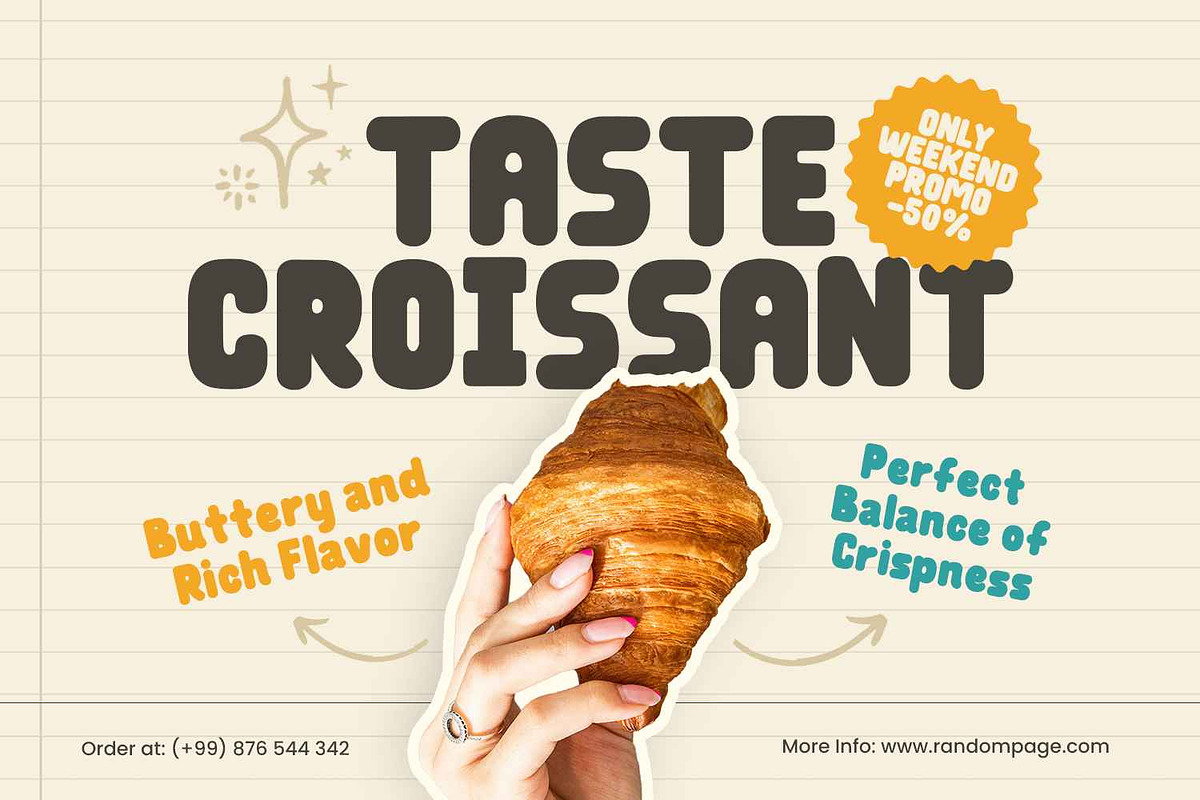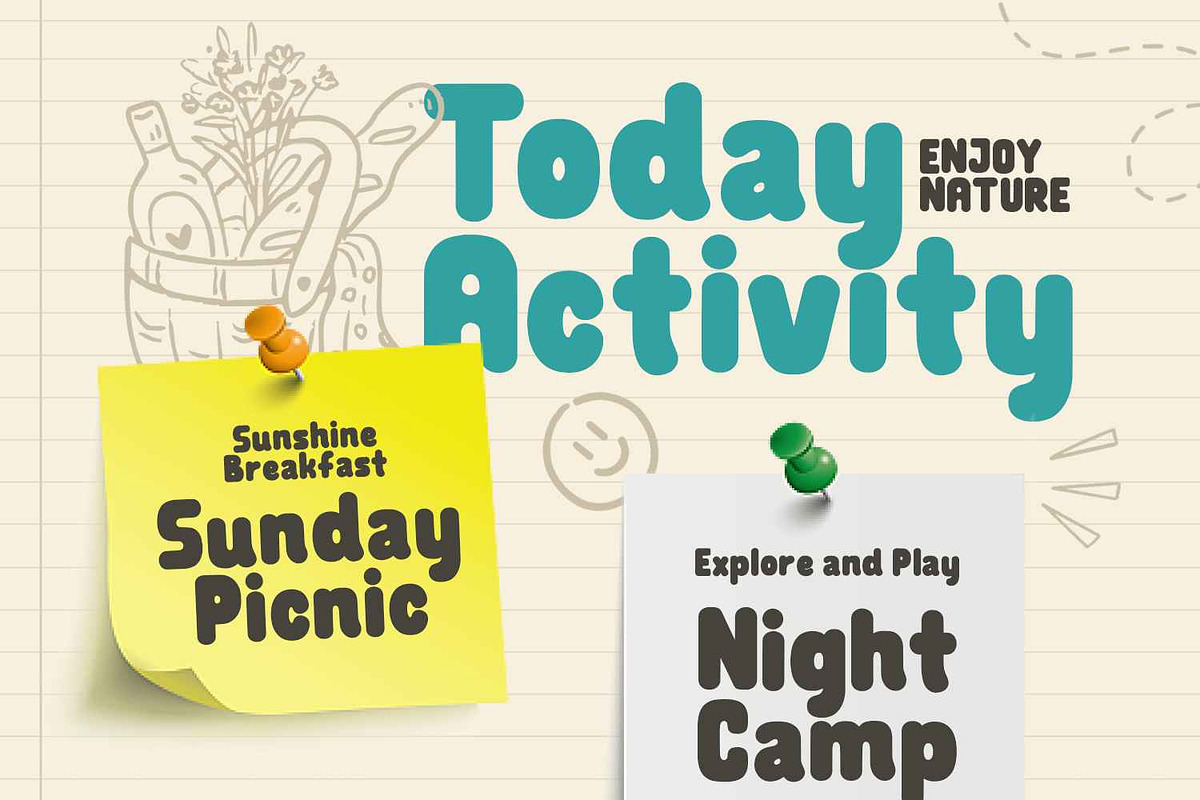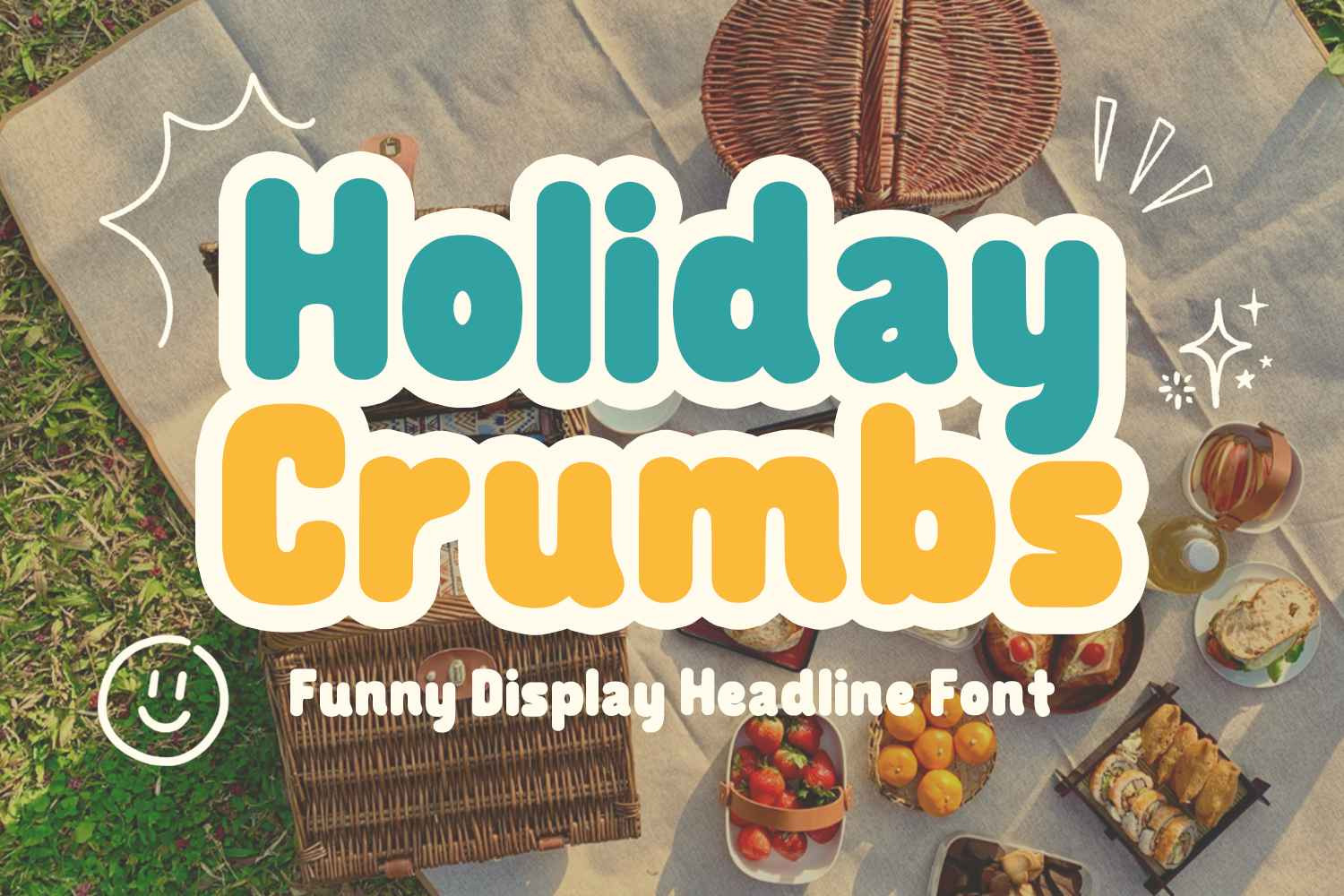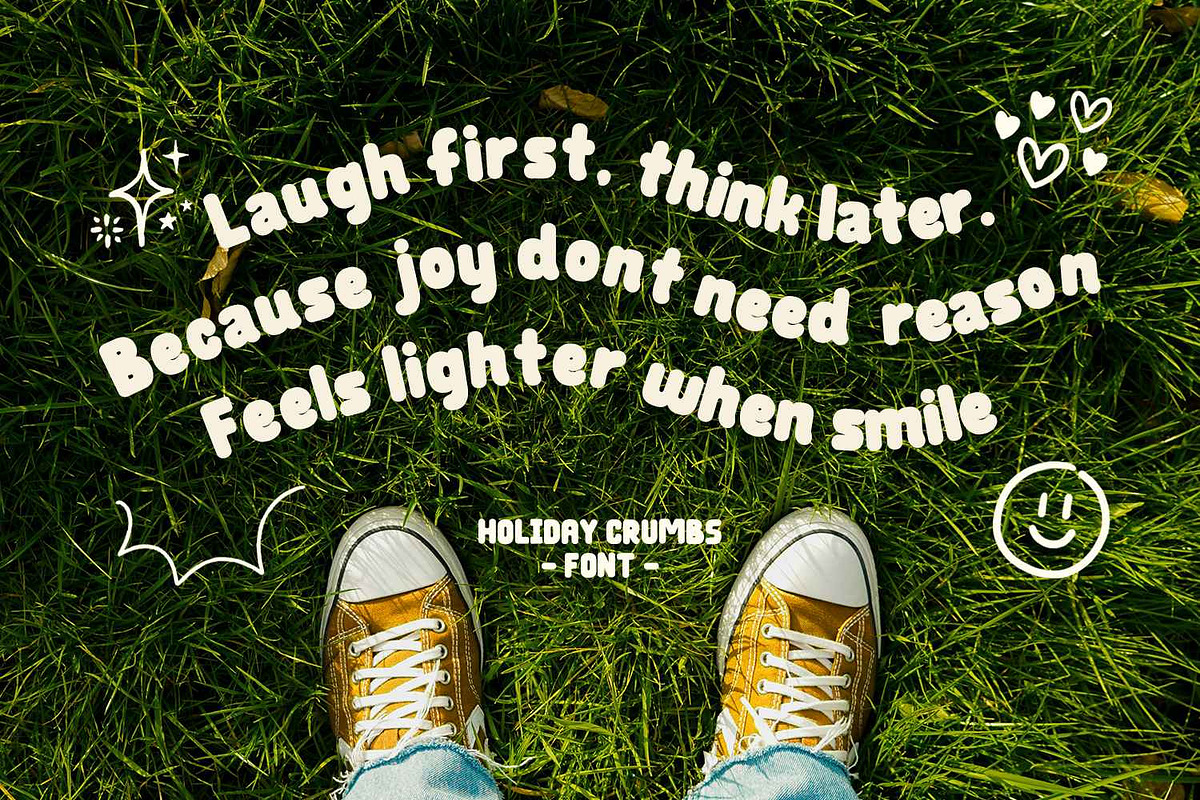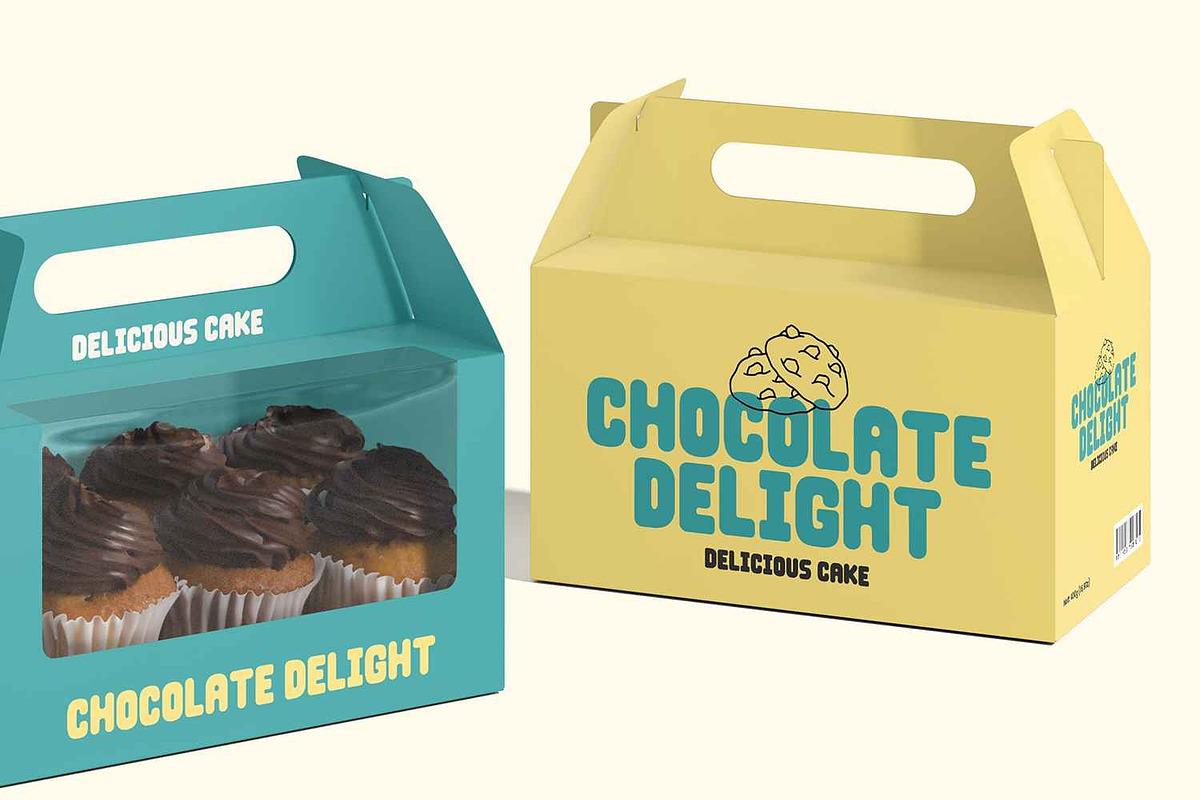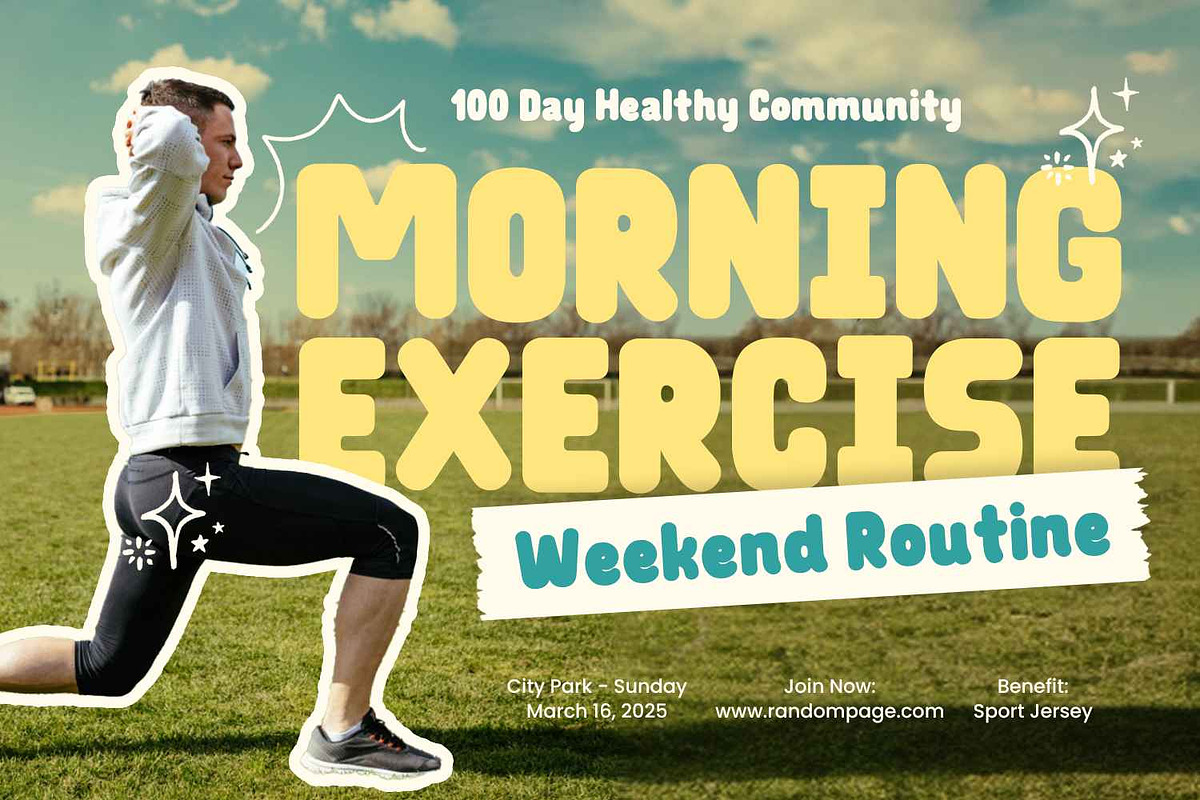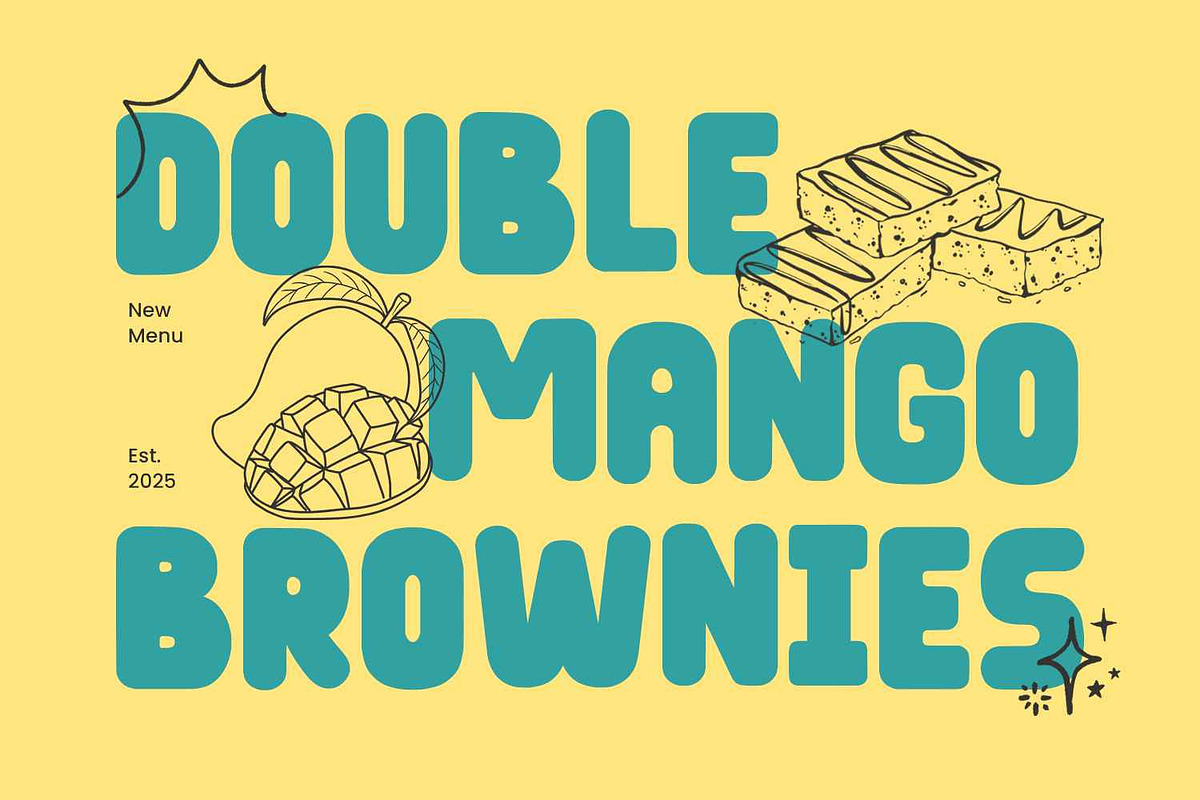
Holiday Crumbs - Food Font
Holiday Crumbs is a playful and charming display font inspired by sweet moments and cozy holiday vibes. With its fun shapes and friendly personality, this font brings a cheerful and heartwarming feel that instantly brightens any design.
Perfect for Christmas and holiday-themed projects, Holiday Crumbs also works beautifully for Thanksgiving, birthdays, parties, kids’ designs, and seasonal celebrations. Its joyful style makes it ideal for creating eye-catching titles, festive messages, and decorative typography that feels warm and inviting.
Designed with creativity in mind, Holiday Crumbs adds a cute and whimsical touch to greeting cards, gift tags, stickers, posters, packaging, and social media graphics. The rounded and expressive letterforms help convey happiness and celebration in every word.
This font is also well-suited for Cricut projects, crafts, DIY decorations, lettering, and SVG-based designs. Whether used for handmade products or digital artwork, Holiday Crumbs delivers a fun and lovable look that stands out across all creative applications.